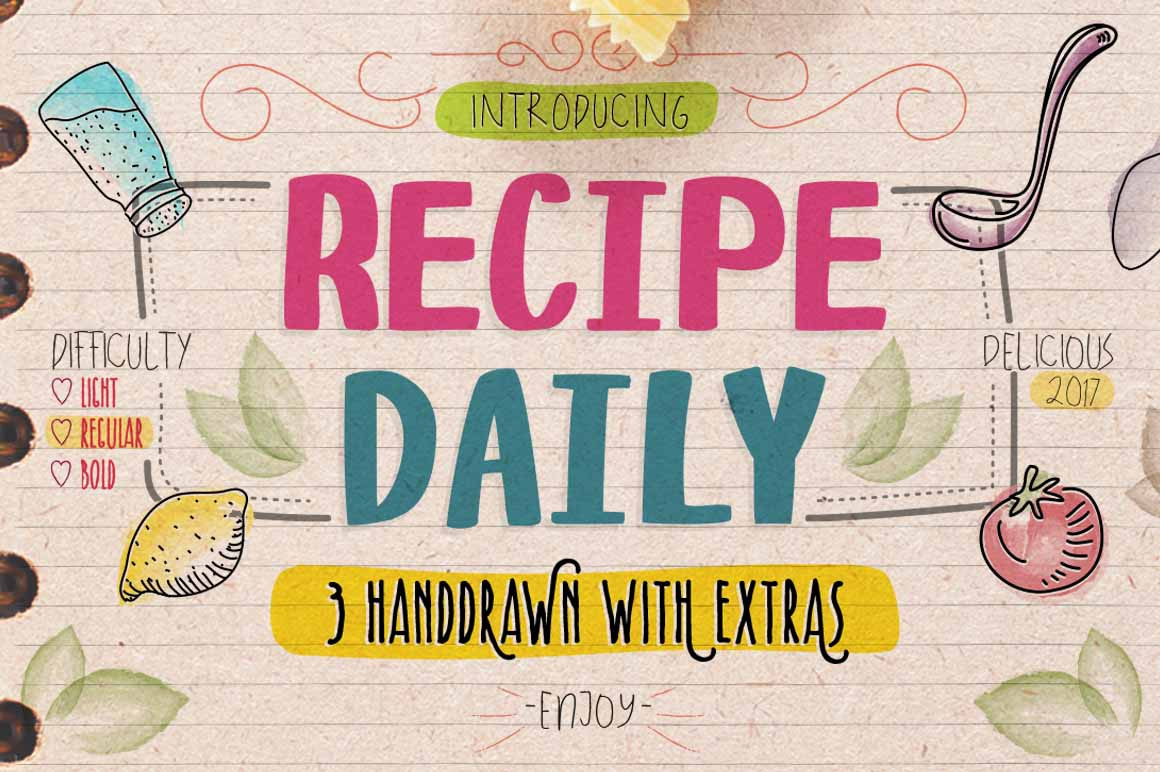
Recipe Daily Typeface
Hello There, It's called Recipe Daily. Recipe Daily typeface inspired by many lettering on the recipes note , and it's specially designed for the recipe note and instagram preview, who use modern concept for lettering, logo, posters, t-shirt, etc.
- Recipe Daily Light
- Recipe Daily Regular
- Recipe Daily Bold